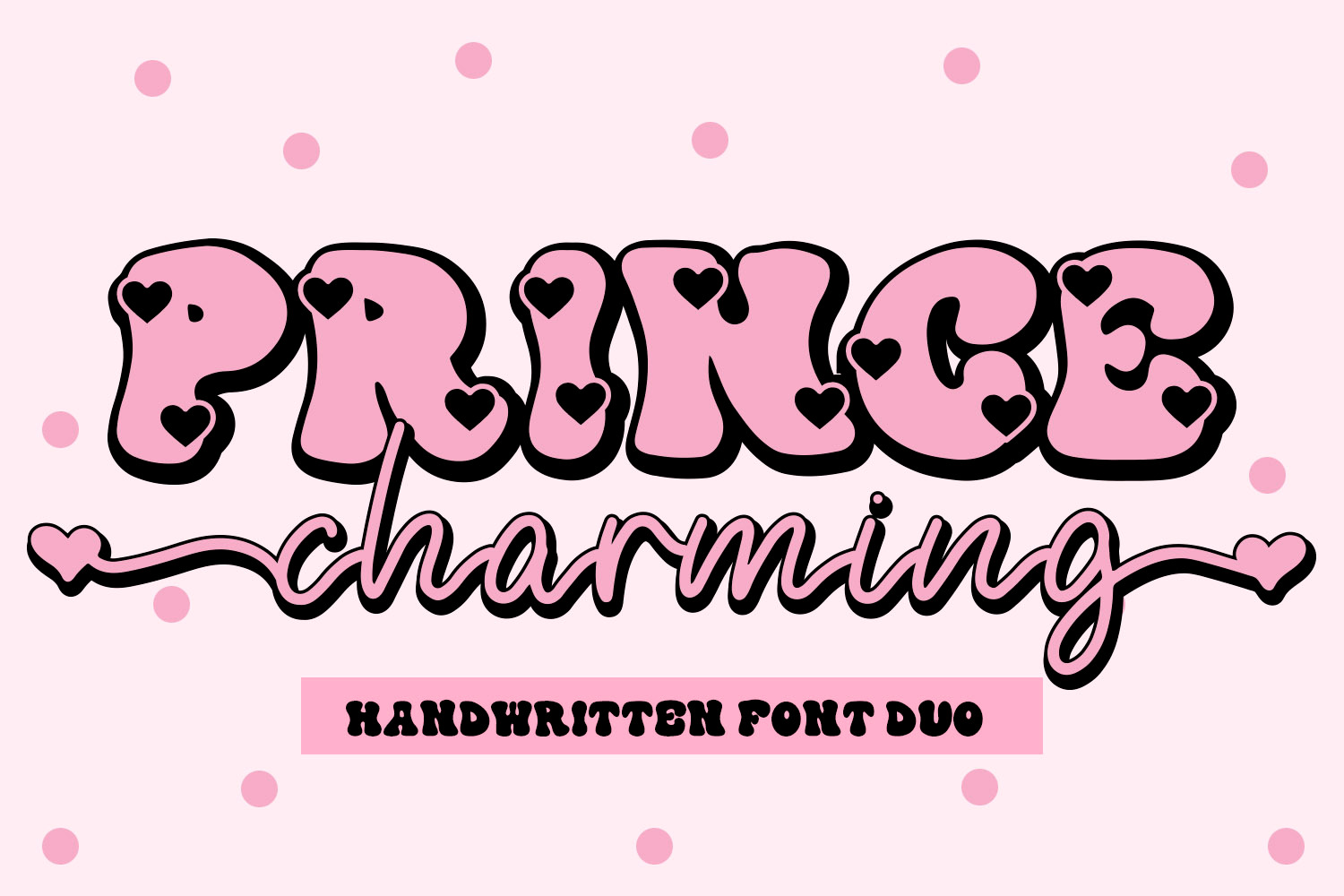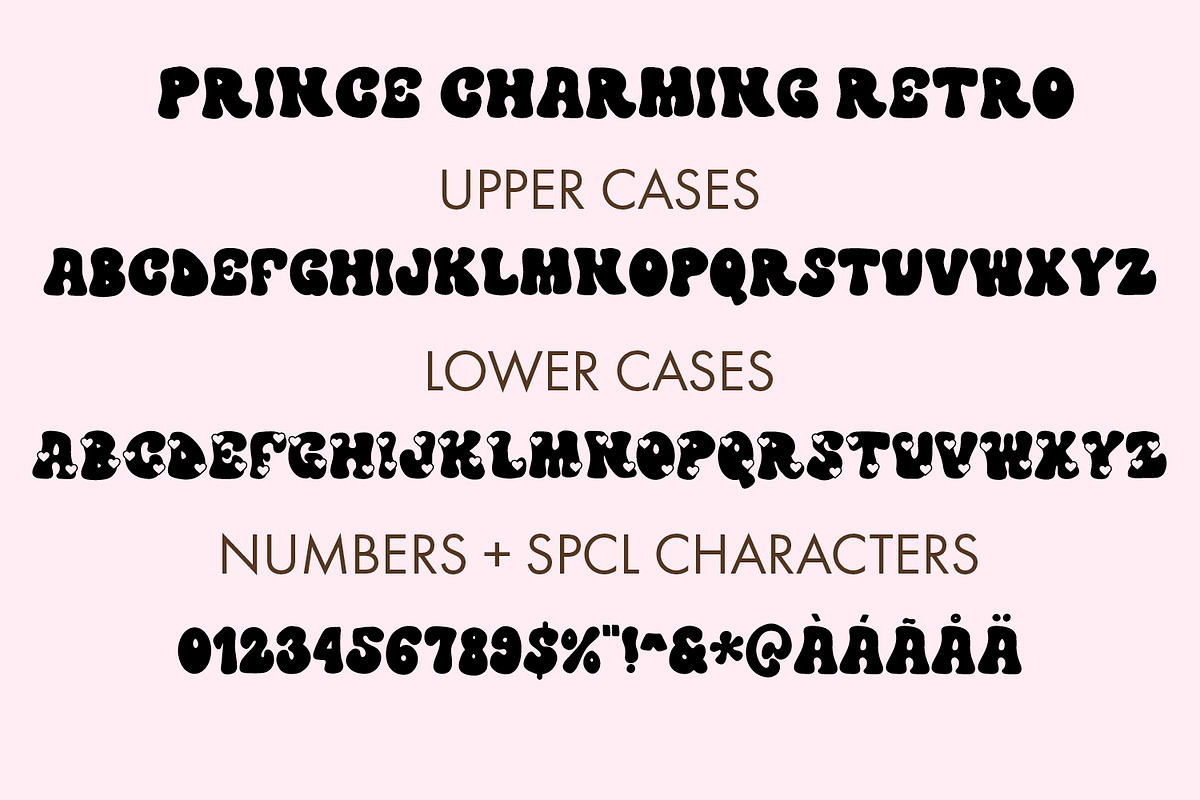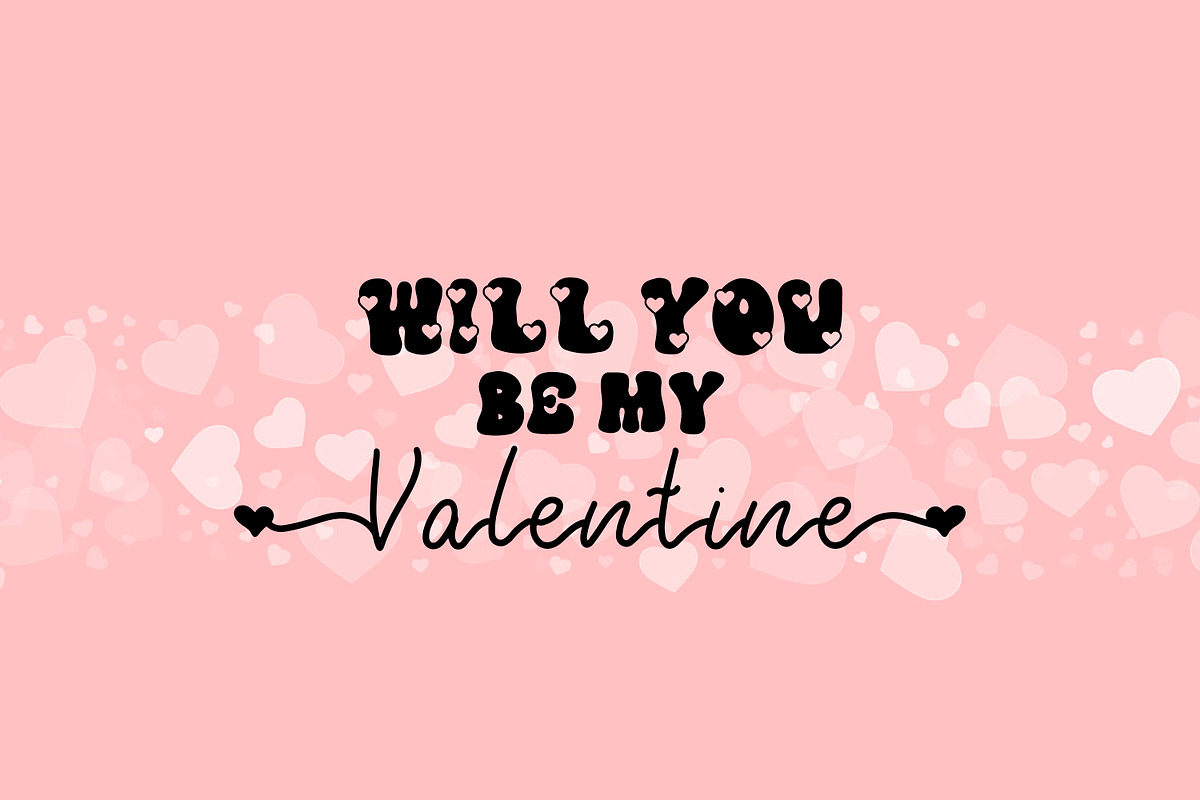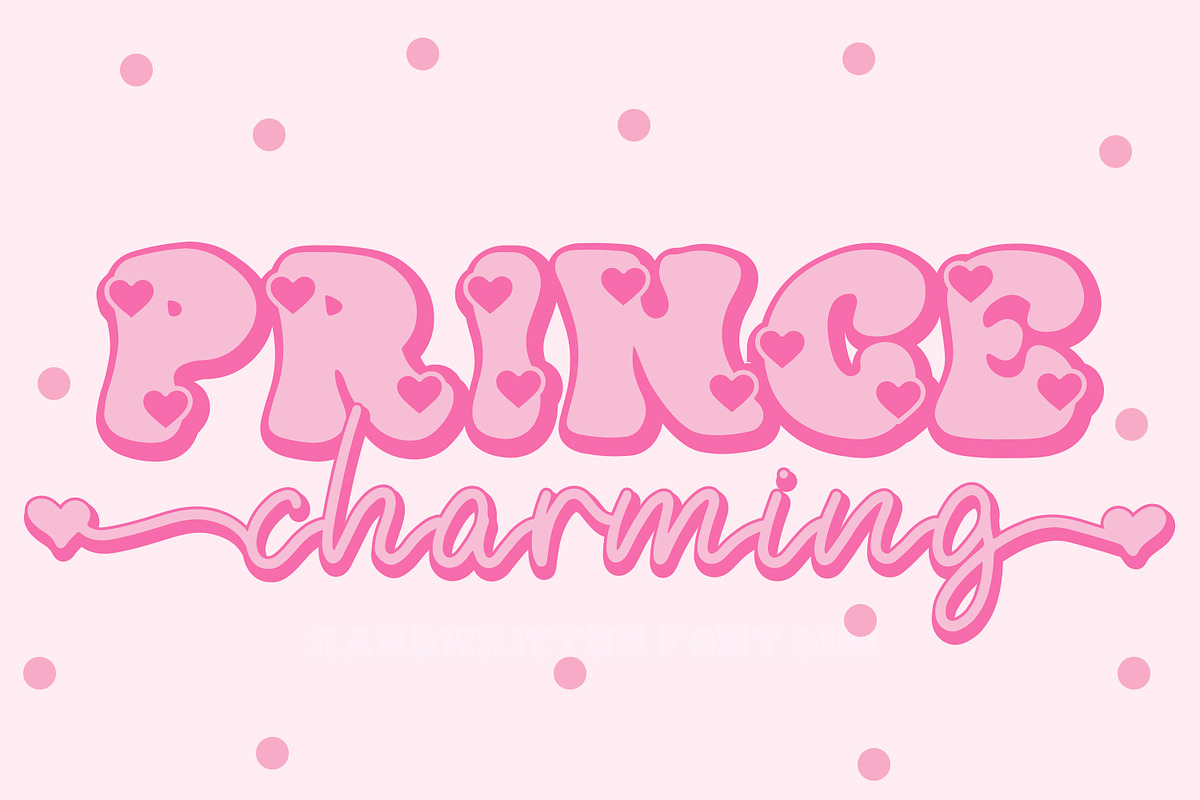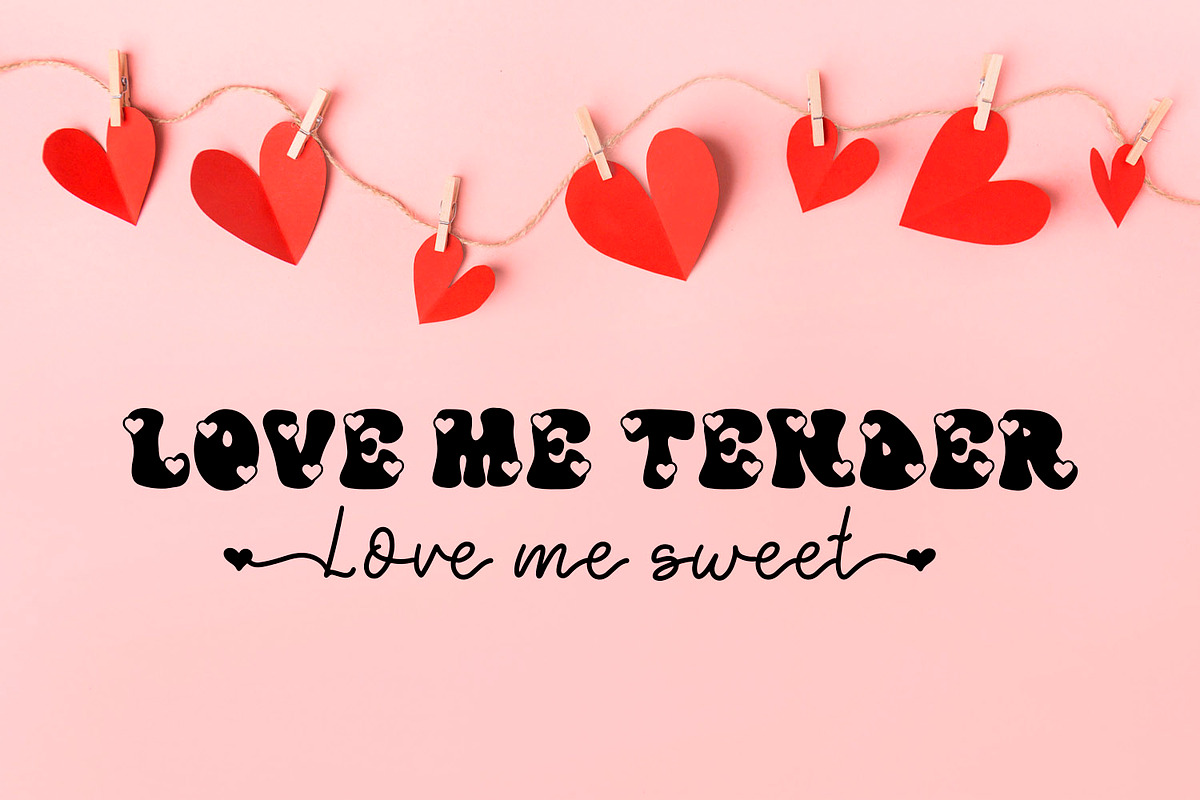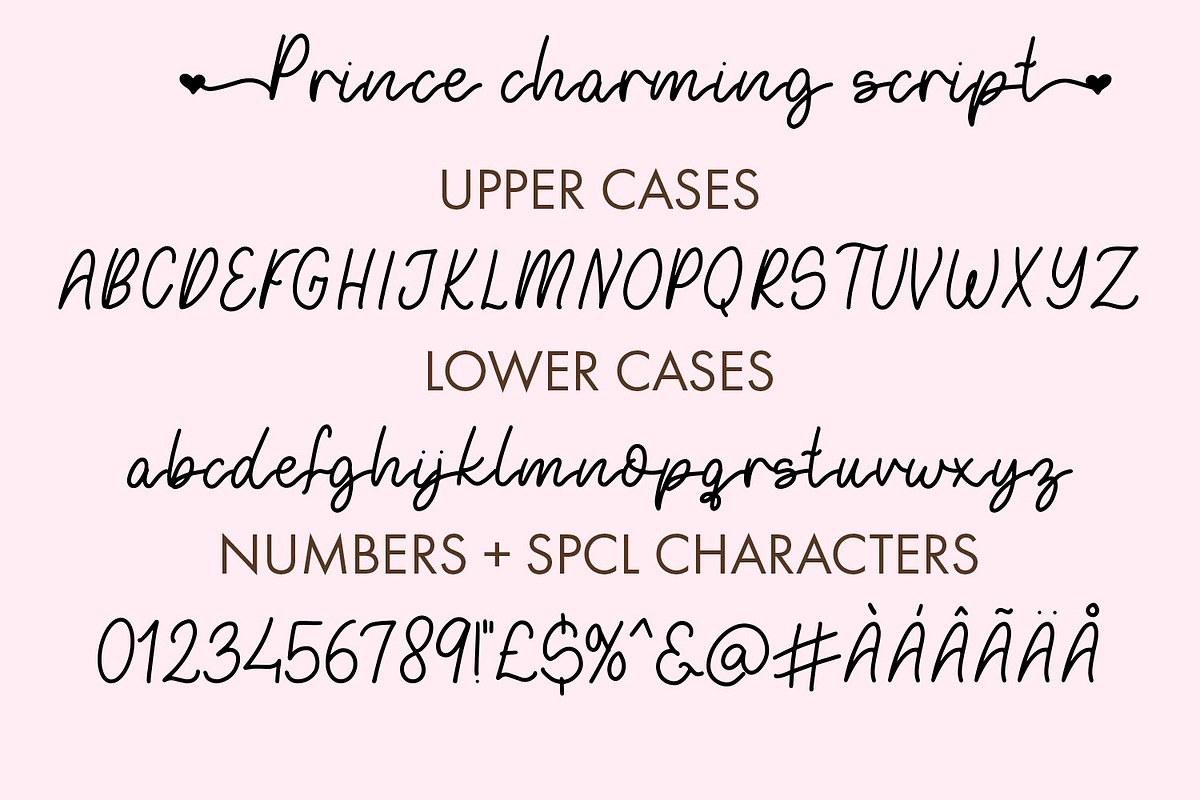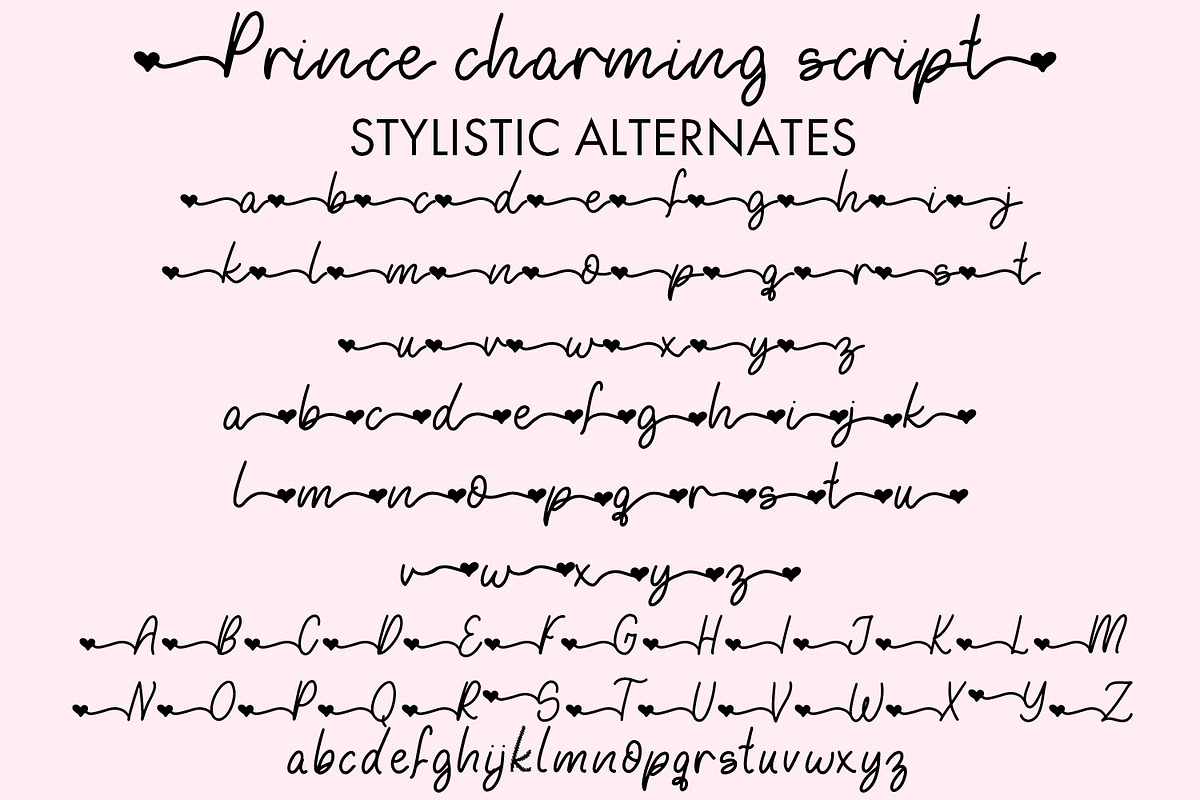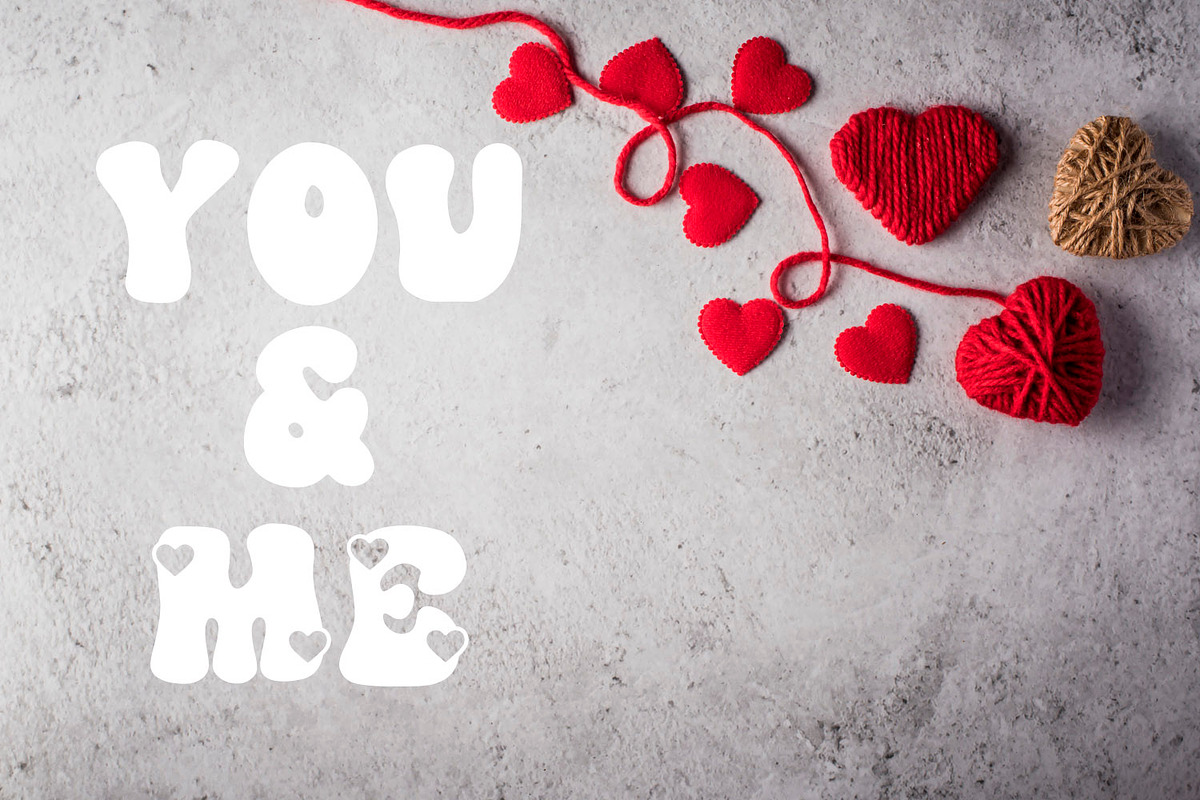
Prince Charming Retro Font Duo
Introducing 'Prince Charming' Font Duo – where retro meets romance! Dive into nostalgia with the chunky font adorned with heart cutouts, adding a playful touch. Complement your designs with the elegant script monoline font for a touch of timeless charm. Perfect for crafting love letters, vintage vibes, and everything in between.